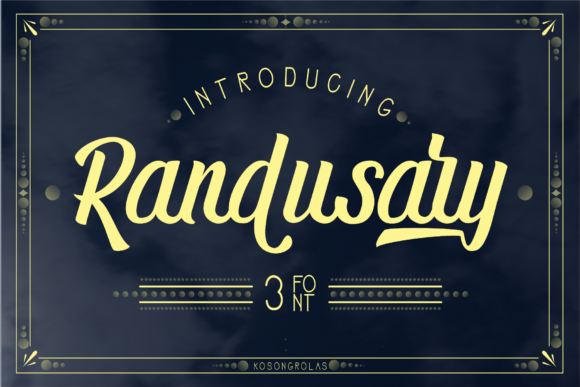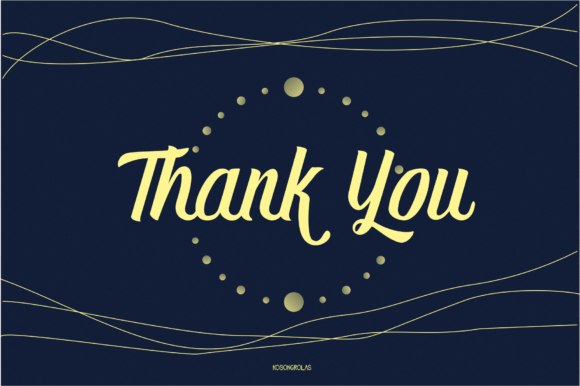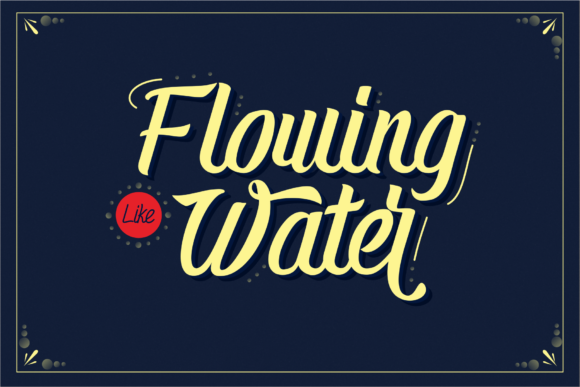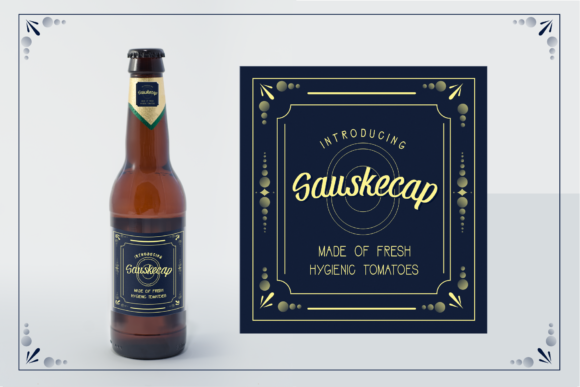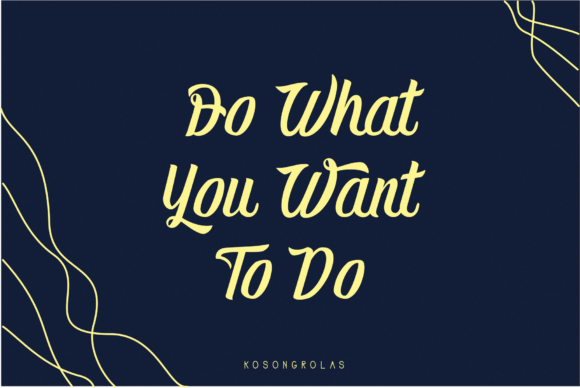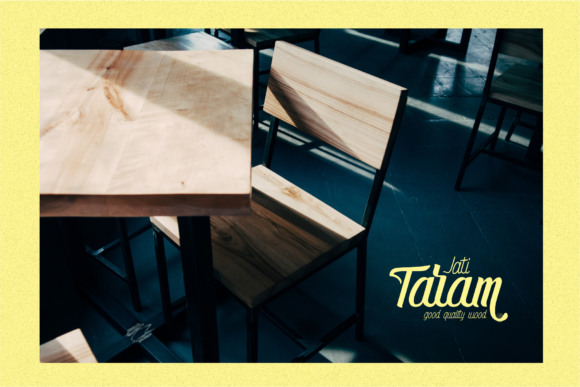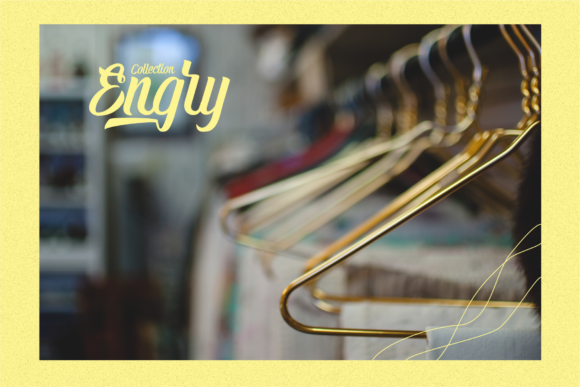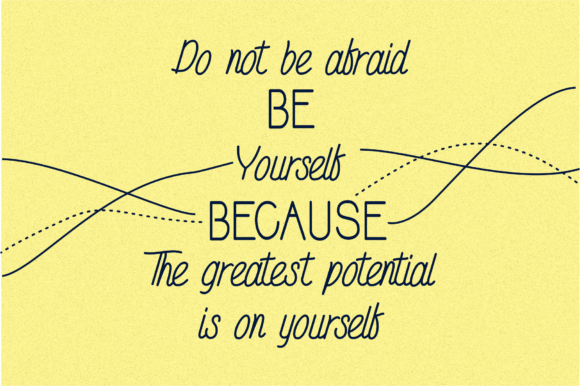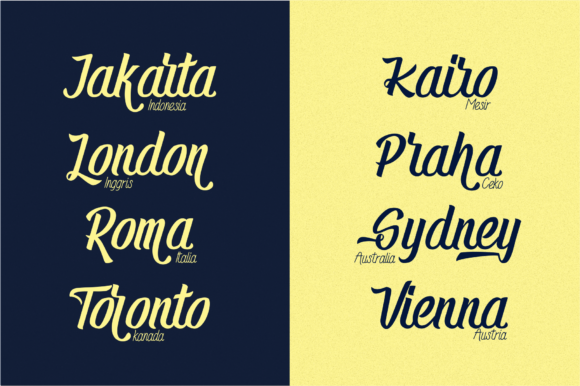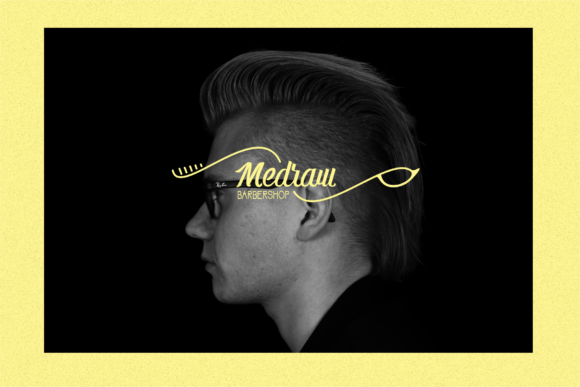
Randusary Font
About Randusary Font
The Randusary is a modern family of three. It comes in a script, sans and monoline version. Each version has its own uniqueness that will give you the opportunity to keep creating unique designs with the same fonts.